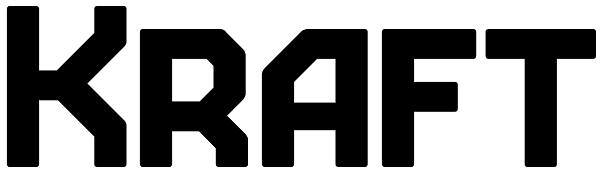
ALS Kraft
A simple rough font. Kraft is a rough techno-style sans serif meant for setting text in all capitals. Instead of lowercase letters there are capitals of smaller height but with the same stroke width. They make tighter type. Characters are pressed...